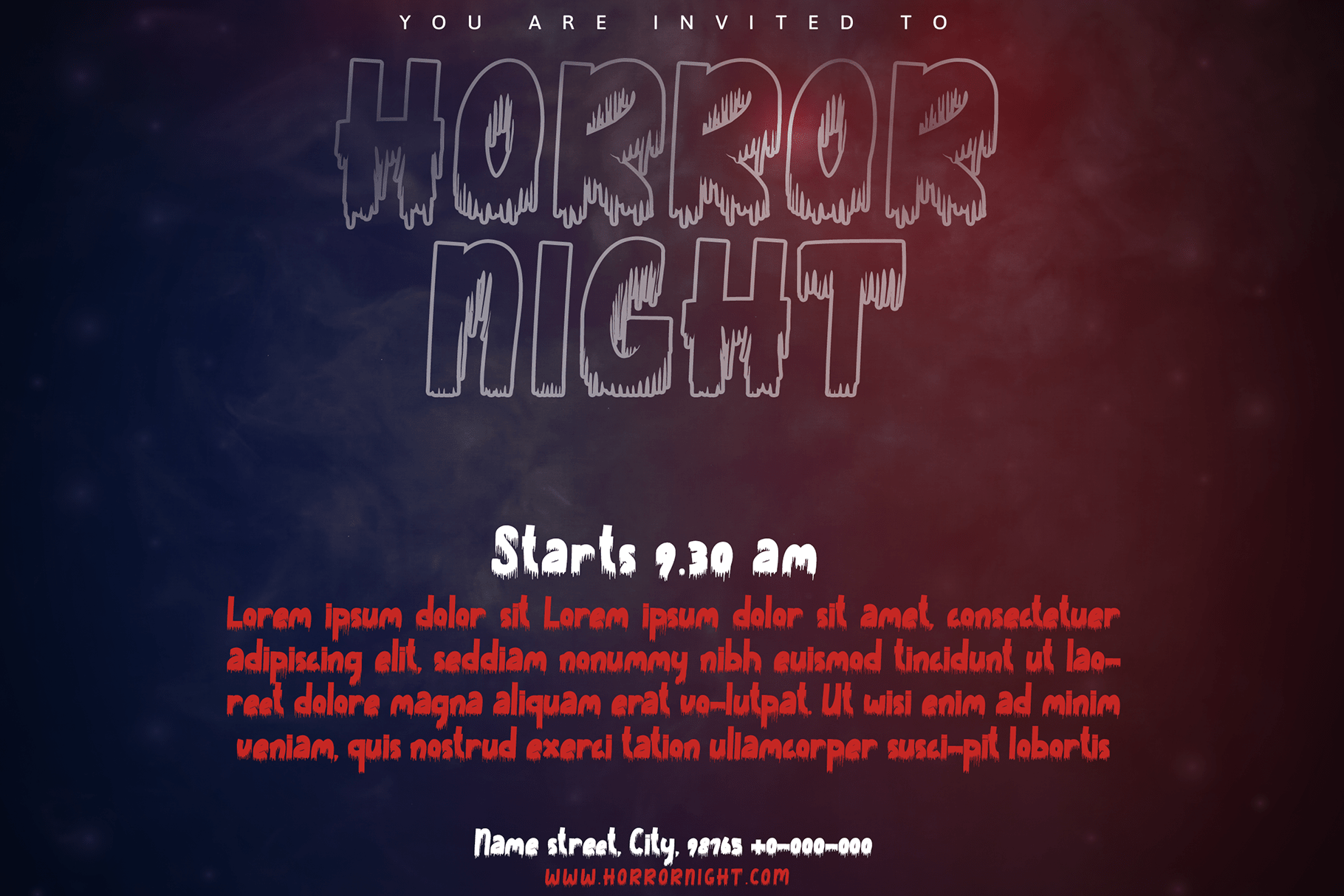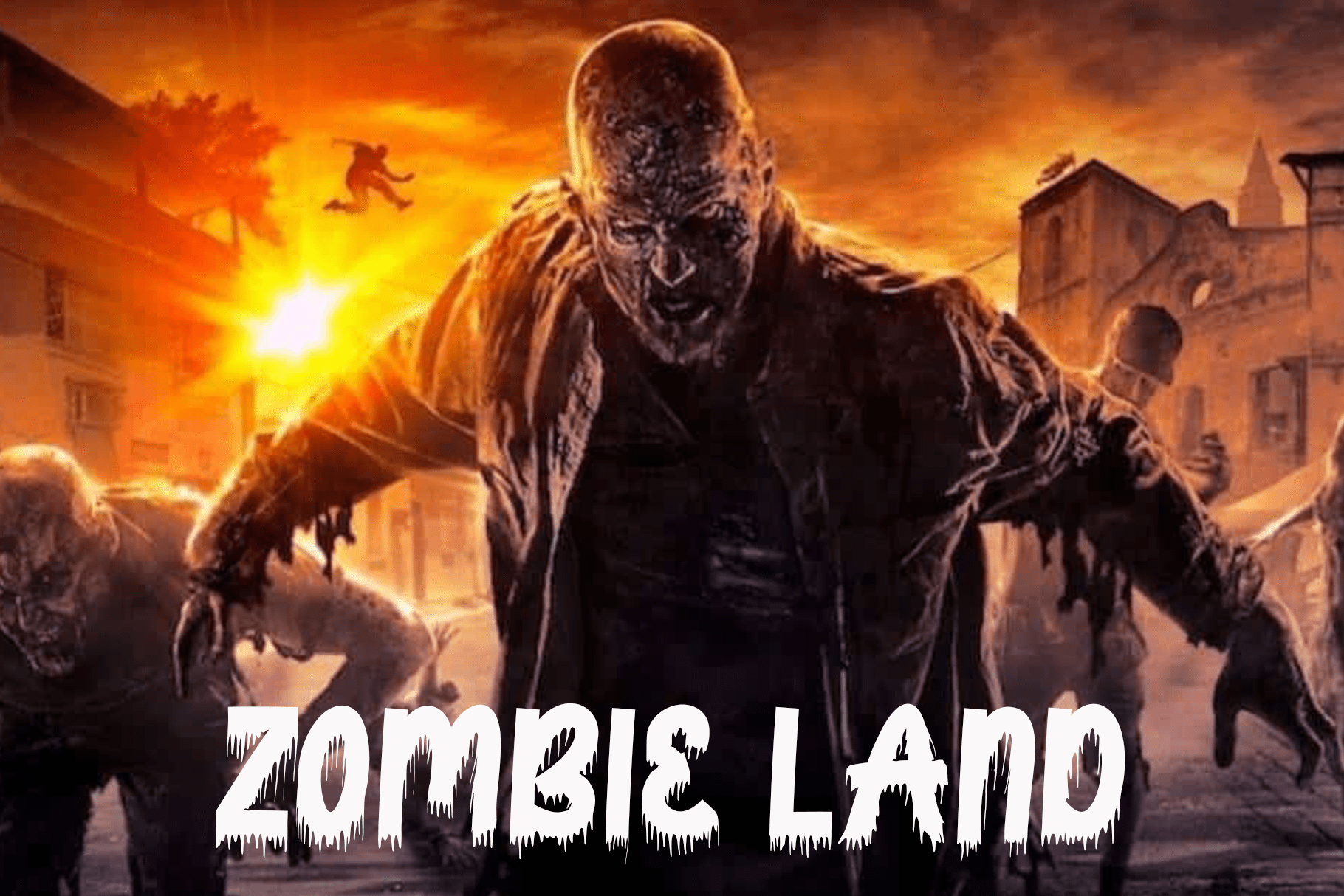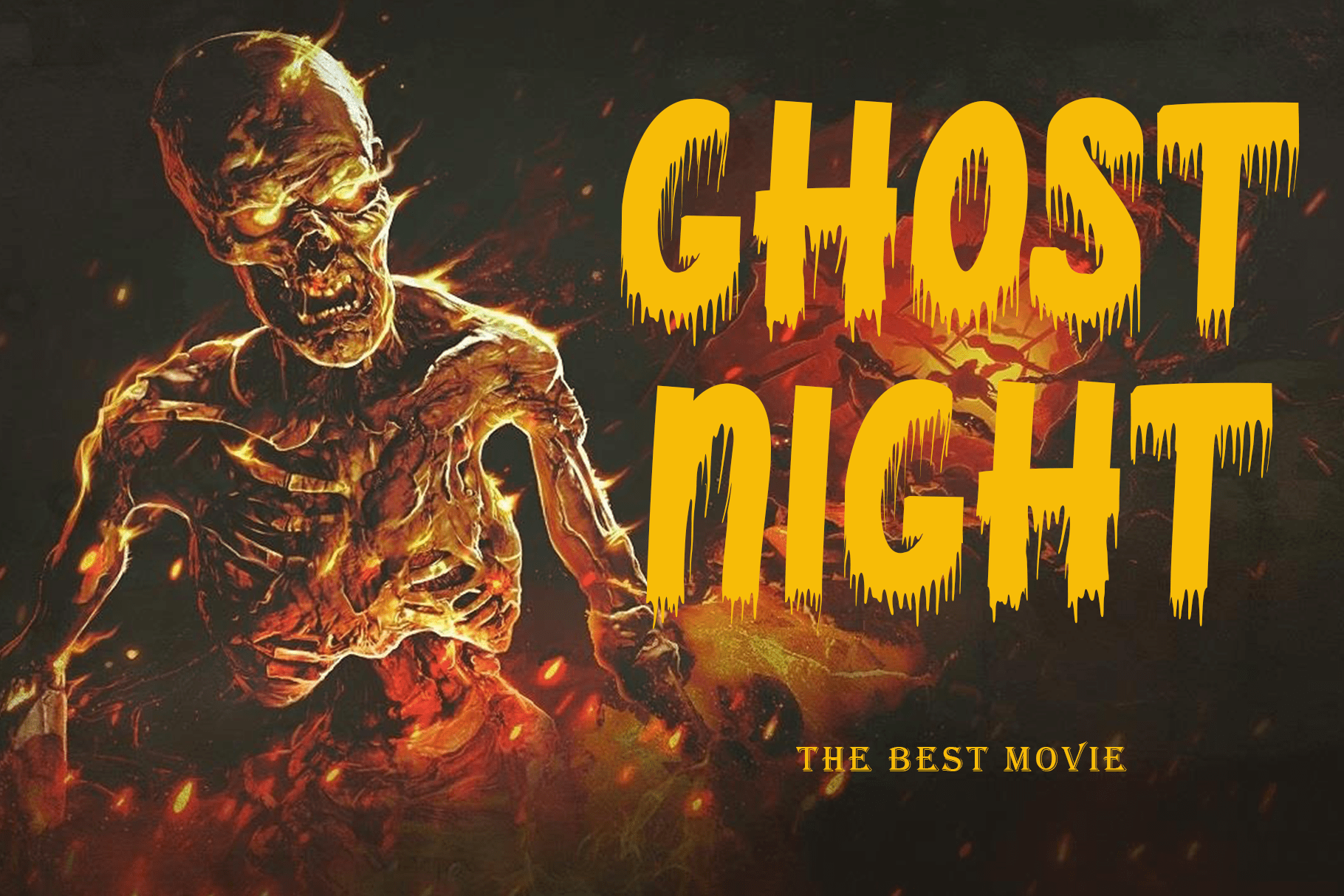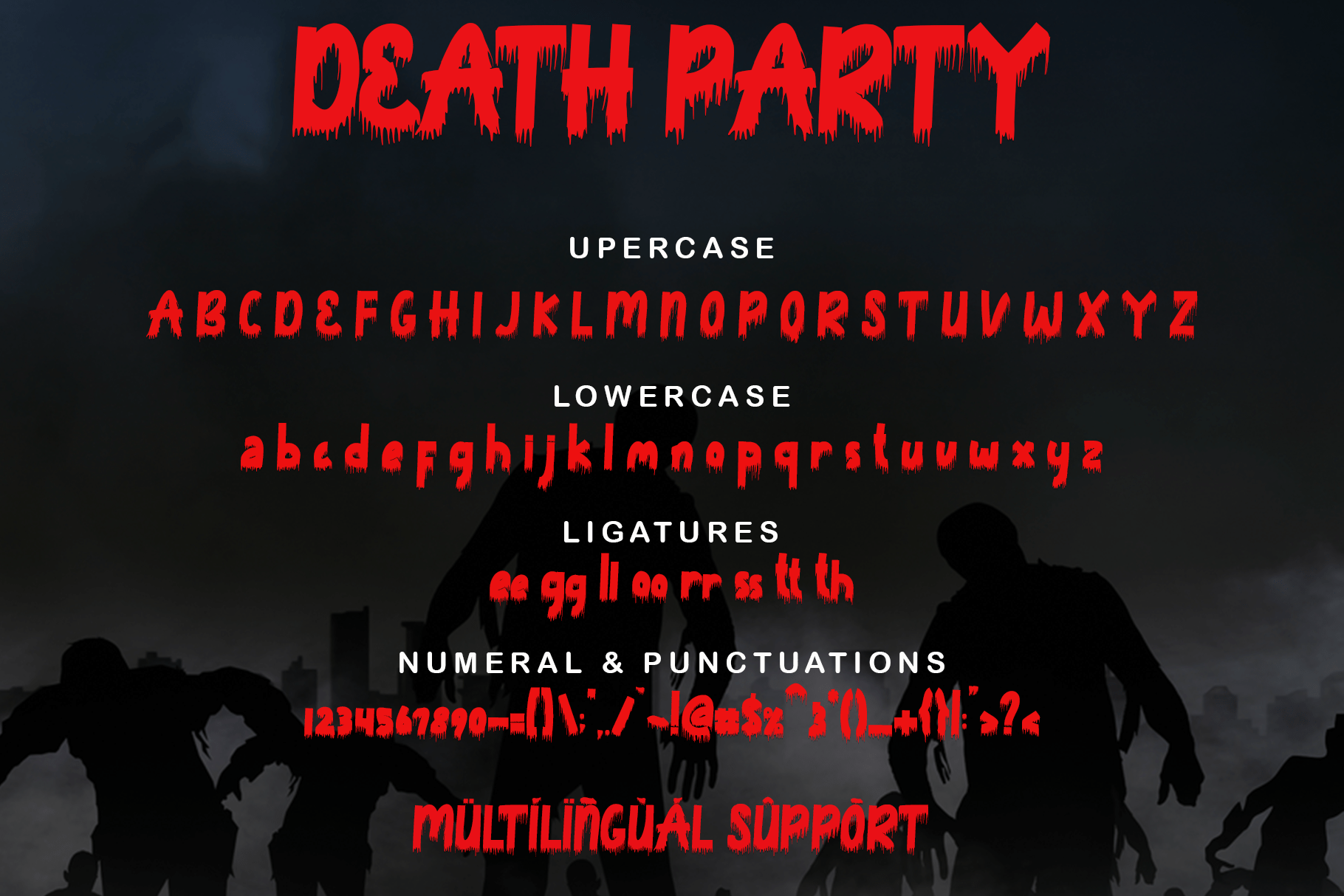
Death Party Display Font
This font is a special halloween font that will make your halloween party even more scary and will make you more total in welcoming the halloween party. This font is very easy to use because it has been specially designed. “Death Party” is also suitable for making Halloween greeting cards, horror movie titles, comic titles, magazines, posters, book titles and more.